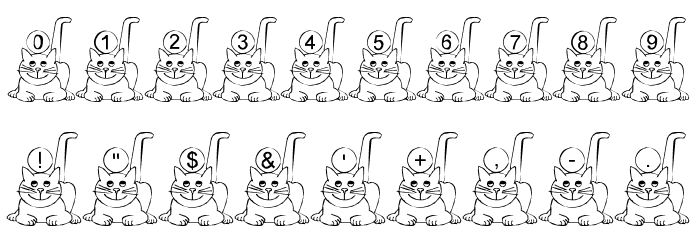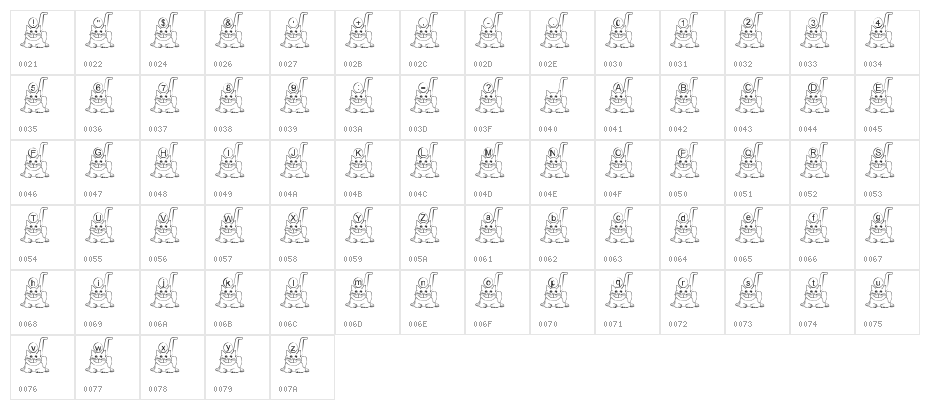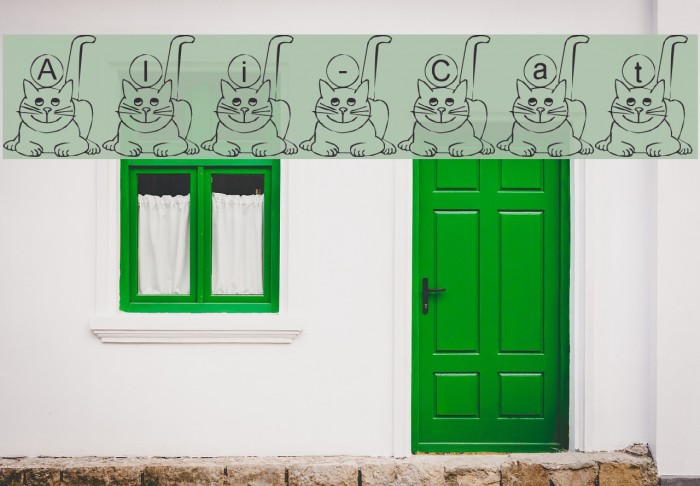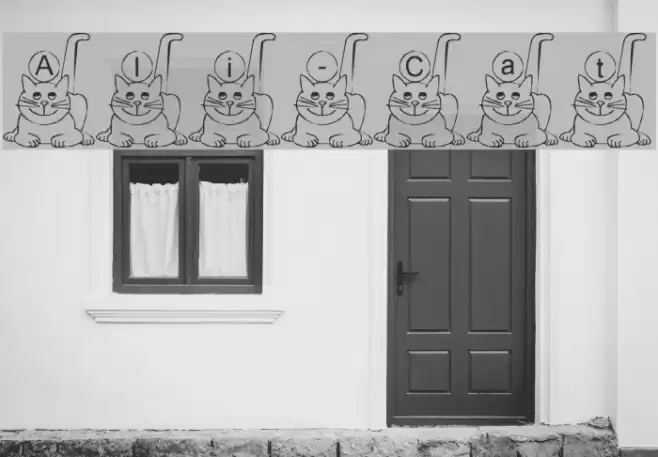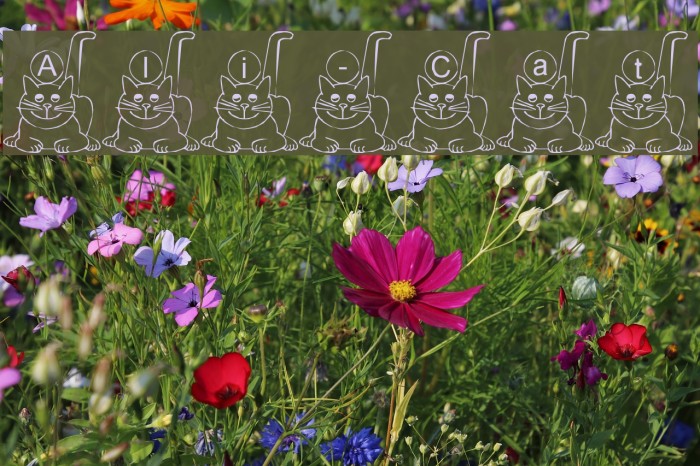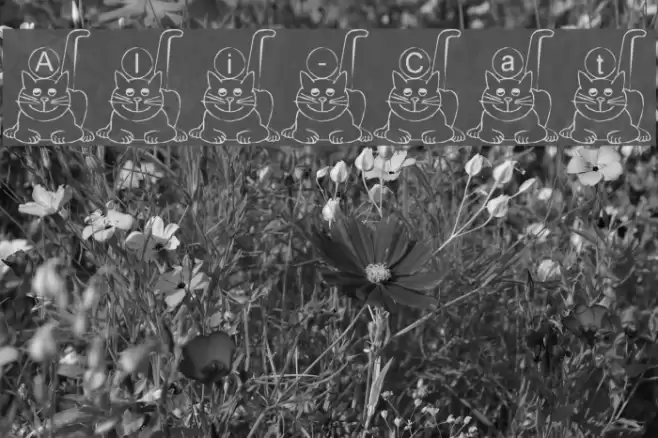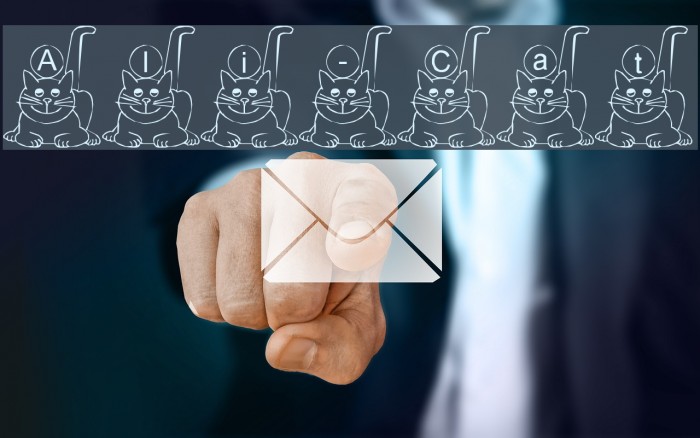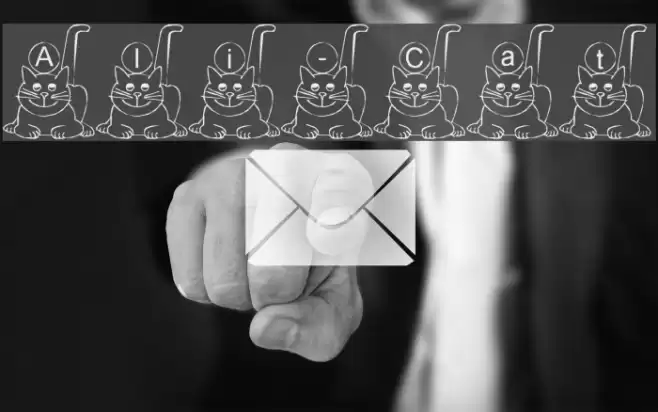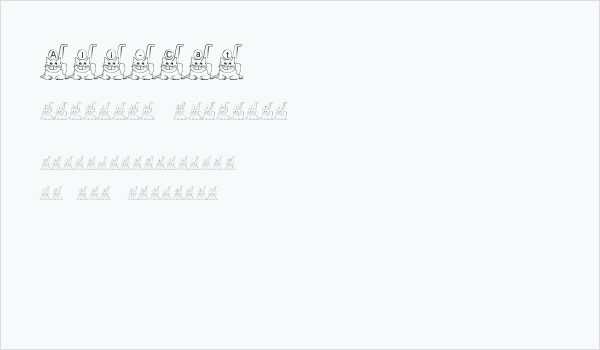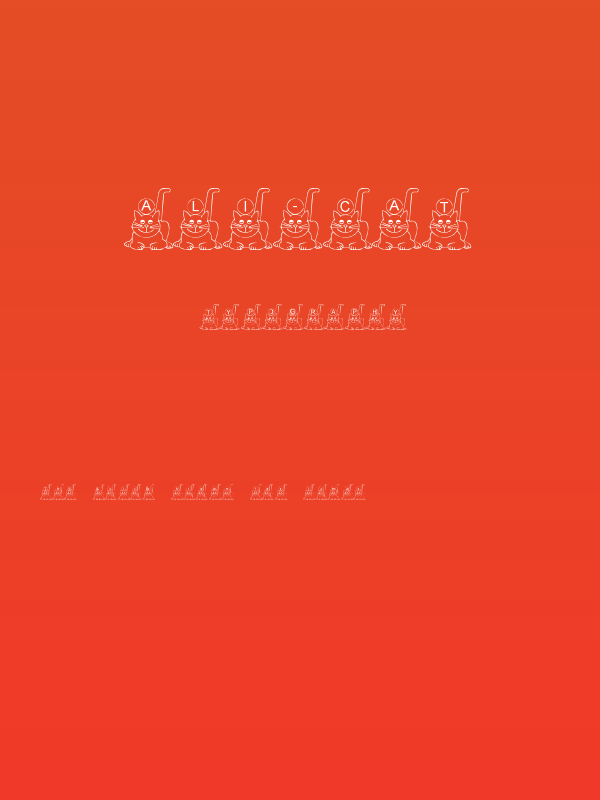
Ali-Cat Font
Ali-Cat Description
This playful and whimsical font features each character embedded within a cartoonish cat design. The letters and numbers are bold and clear, making them easily readable despite the decorative elements. Each character is centered on the cat's forehead, adding a unique and humorous touch. The font is consistent in style, with each cat maintaining the same posture and expression, ensuring uniformity across all characters. The special characters are also incorporated seamlessly into the design, maintaining the same playful aesthetic. This font is perfect for projects that require a light-hearted and fun approach, such as children's books, playful branding, or themed event invitations.
| Proposed Projects | Children's books, playful branding, themed event invitations. |